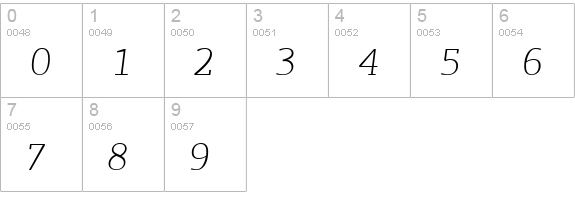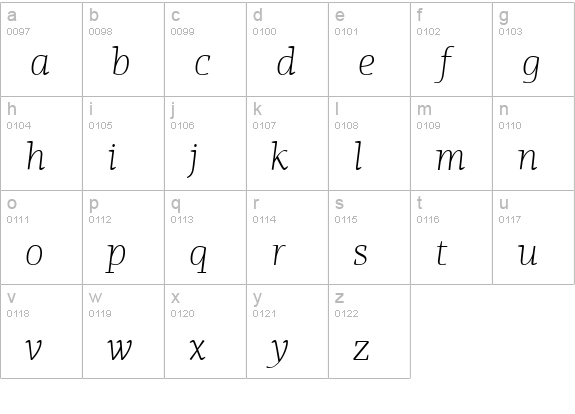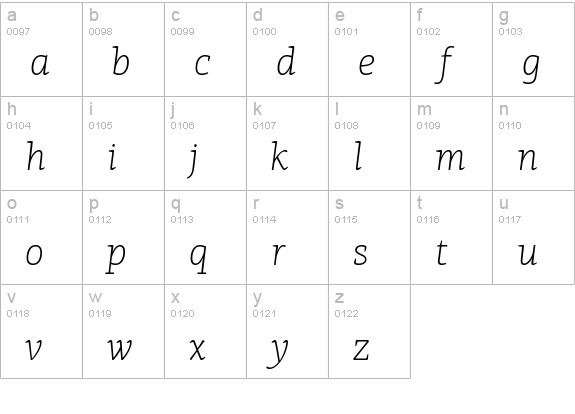
PFAgoraSlabPro-ThinIt font is a stunning and elegant typeface that exudes sophistication and modernity. Its sleek and slender design makes it perfect for various design projects, from branding to editorial layouts. The thin strokes and clean lines give this font a refined and contemporary look, making it a versatile choice for both digital and print applications. What sets PFAgoraSlabPro-ThinIt font apart is that it is available for free download at FontsMarket.com. This means that you can easily access this high-quality font without any cost, making it a valuable addition to your font library. Whether you're a graphic designer, a web developer, or a creative professional, PFAgoraSlabPro-ThinIt font offers endless possibilities for creating visually captivating designs. Don't miss out on this fantastic opportunity to enhance your projects with this beautiful and stylish typeface.